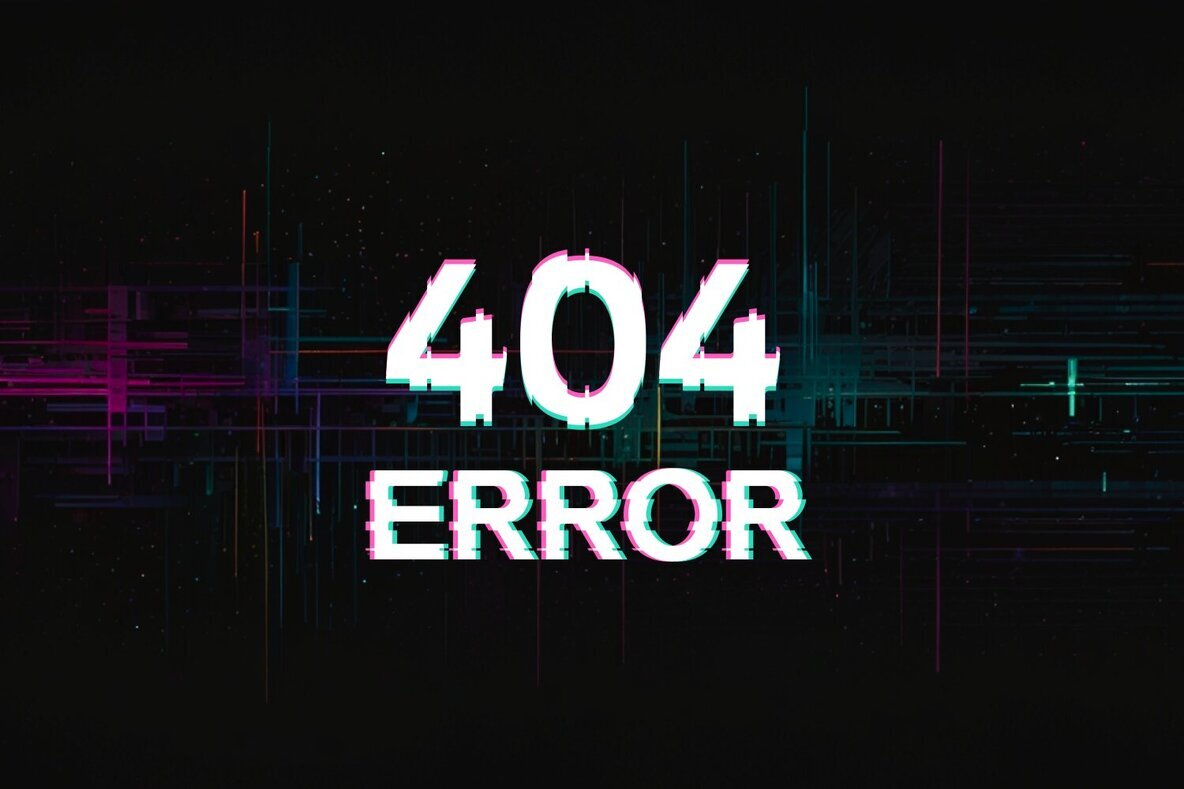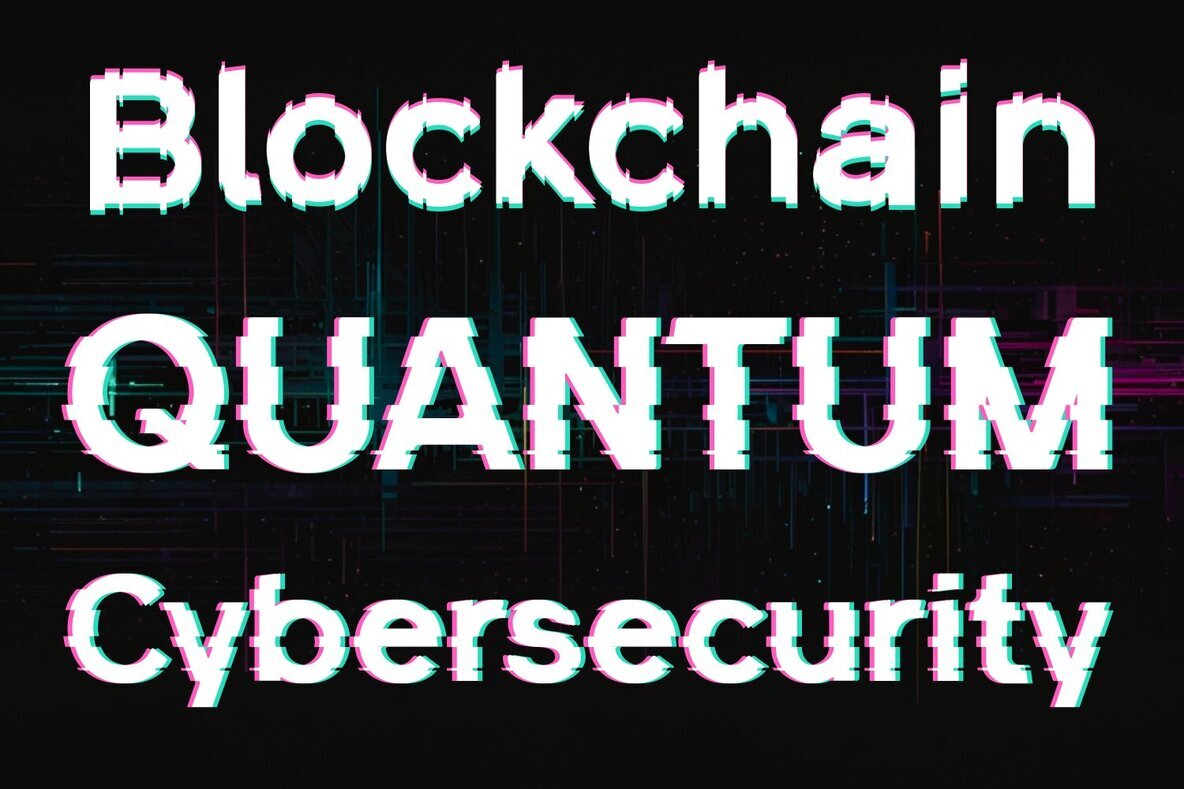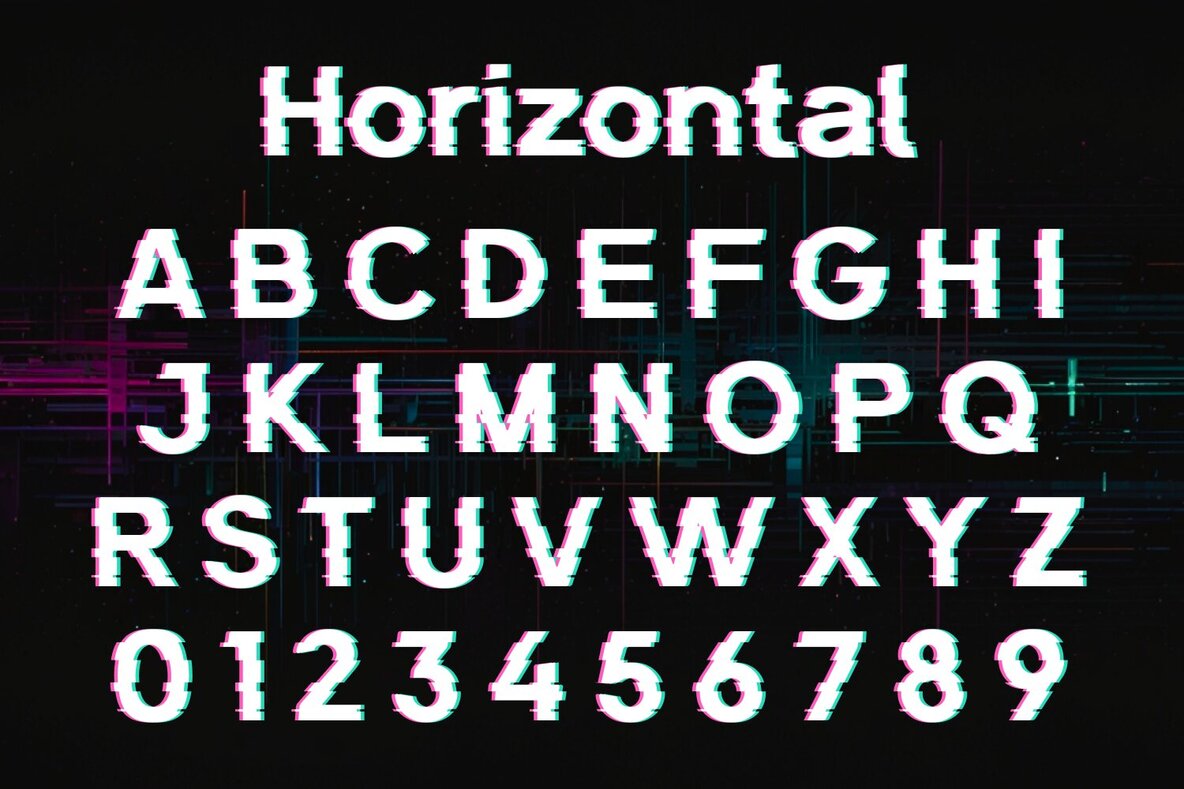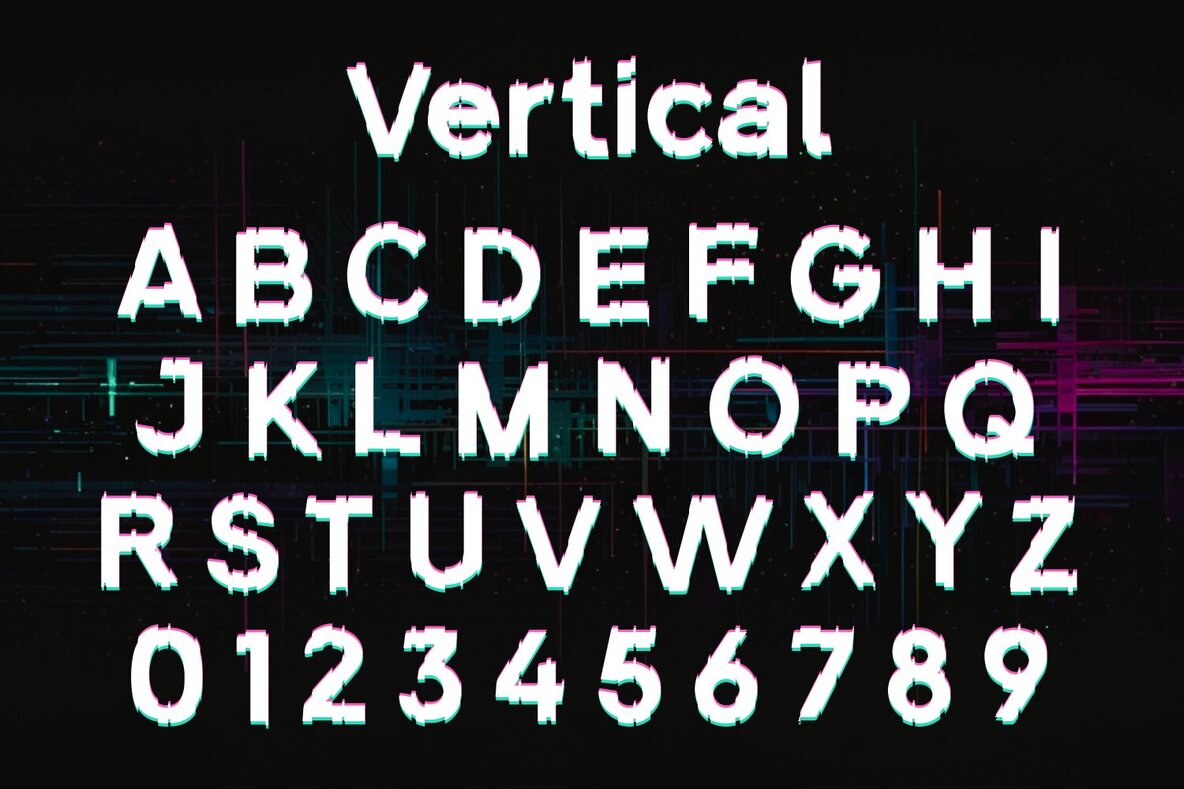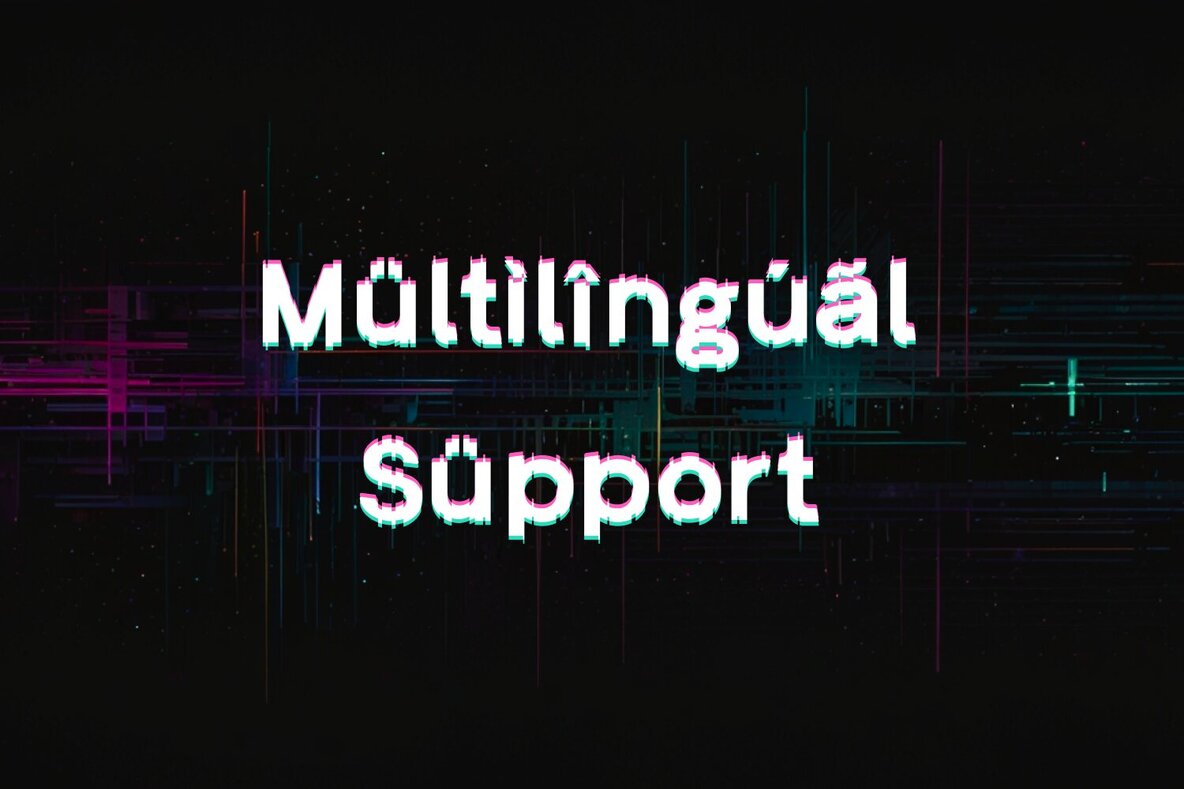
Glitchren Font
Glitchren Horizontal
Glitchren Vertical
Glitchren is a cutting-edge typeface that embodies the aesthetic of digital disruption, featuring two unique styles that redefine modern typography. Glitchren Horizontal introduces deliberate horizontal glitches, breaking the flow of text to create a visually striking effect. This style is perfect for grabbing attention in edgy posters, futuristic branding, and creative digital artwork, offering a compelling blend of chaos and clarity.
Contrastingly, Glitchren Vertical disrupts text with cascading vertical glitches, adding a unique dimension of digital interference. Ideal for innovative designs, tech-themed projects, and modern artistic expressions, this style offers a fresh take on glitch aesthetics. Embrace digital disruption with Glitchren and push the boundaries of conventional typography in your next project.